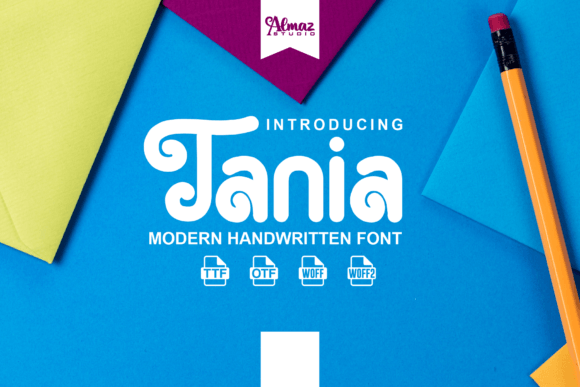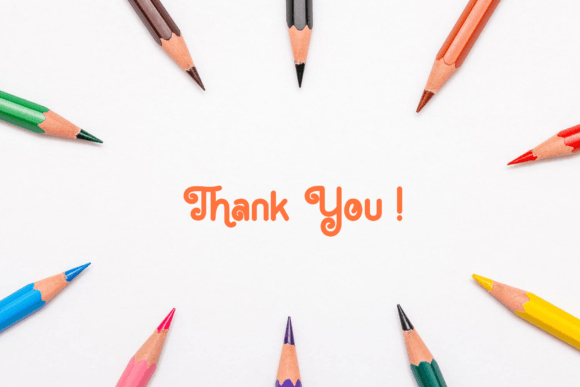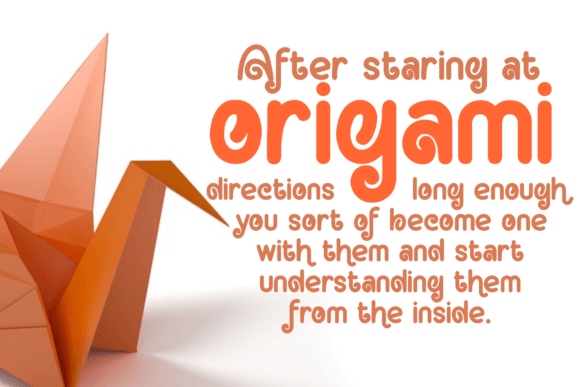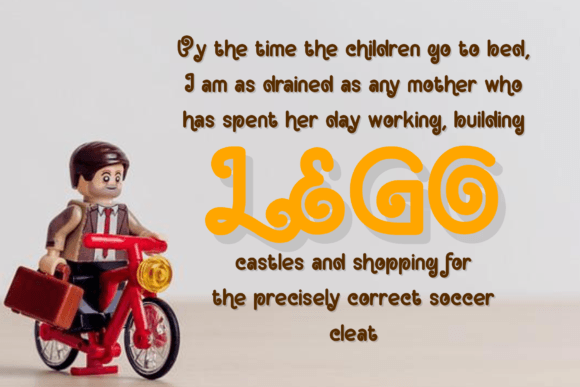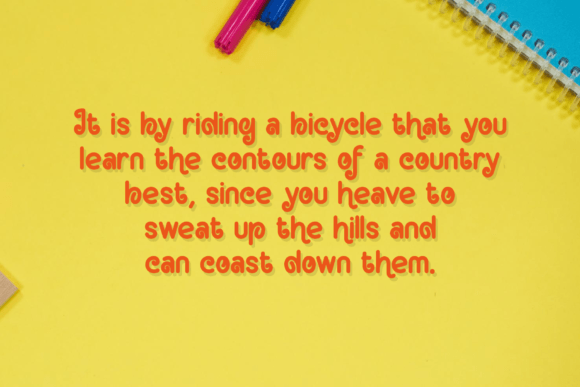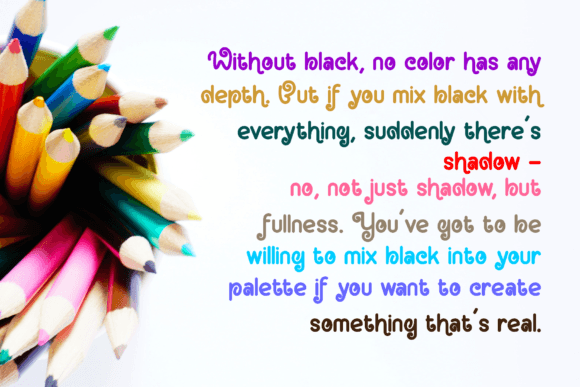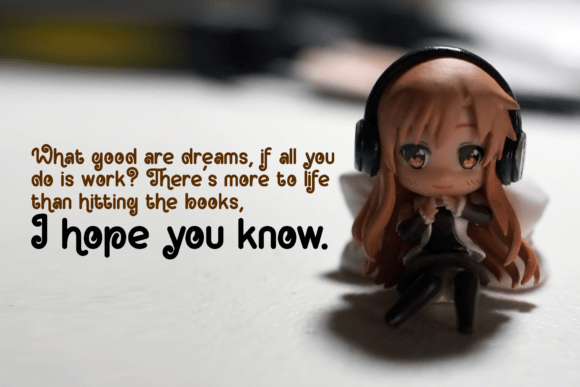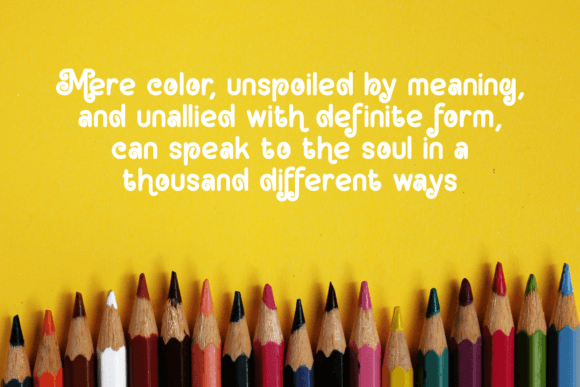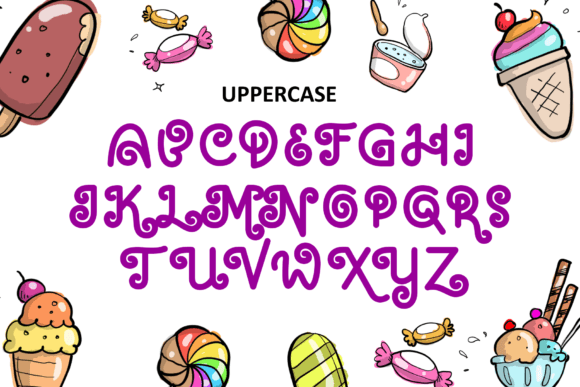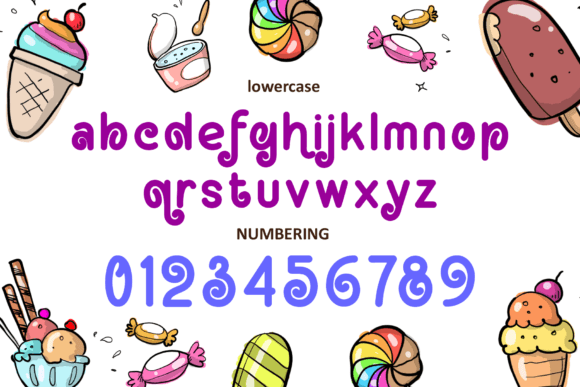
Tania Font
About Tania Font
Introducing Tania, a lively handwriting font with a delightful handwritten brush style. This professional font has undergone a meticulous creation process, blending hand-made and computer-generated graphics, along with various revisions to achieve its unique and appealing appearance. Tania’s clean lines and sharp edges make it a perfect choice for creating a variety of designs, from posters and web graphics to game graphics, t-shirts, videos, signs, logos, and more.
The versatility of Tania extends across different industries due to its cute and friendly feel. It’s well-suited for a range of businesses, including architecture, bakery, boutique, cooking, craft, drink brands, florists, publishing, and more. The font’s ability to convey a cute and approachable vibe makes it adaptable to diverse visual contexts.
The different weights of Tania enhance its usability, making it an excellent option for branding. The font’s condensed spacing adds a touch of elegance, making it visually appealing for web use and various design applications.
In summary, Tania is not just a font; it’s a versatile and professionally crafted typeface that can add a cute and lively feel to your designs. Download Tania now and explore the possibilities of creating eye-catching visuals across a wide range of industries. With its clean lines, varied weights, and playful style, Tania becomes an excellent choice for branding, web graphics, and more, allowing you to bring a touch of charm to your creative projects.